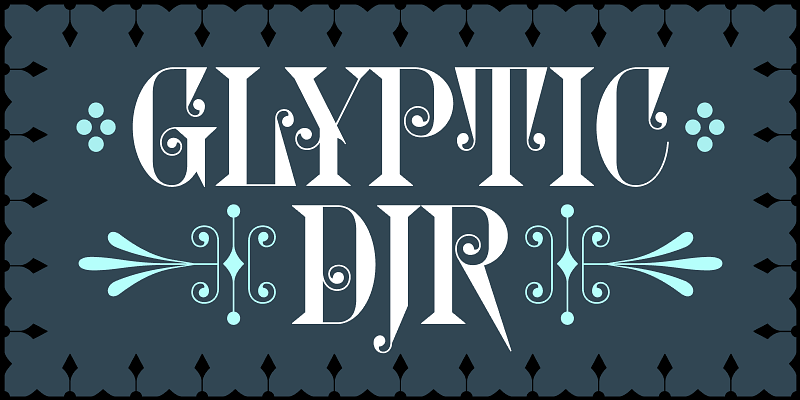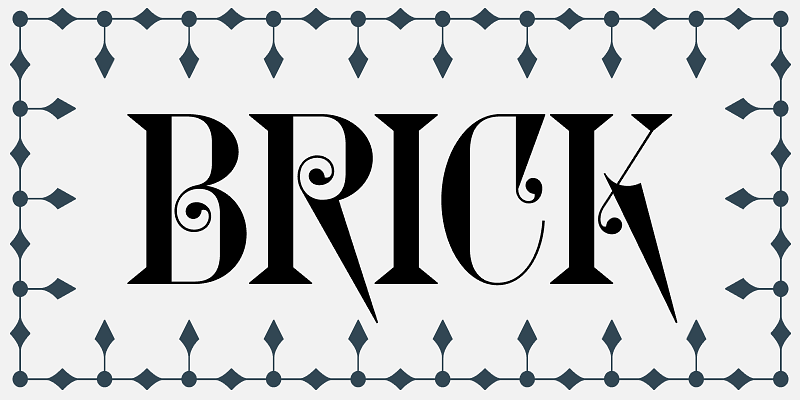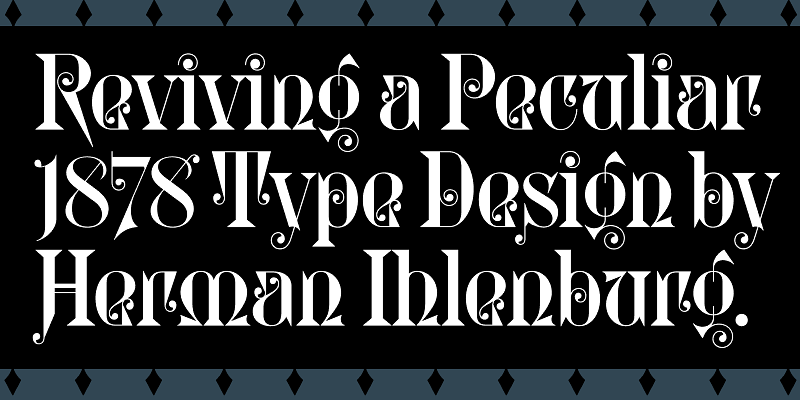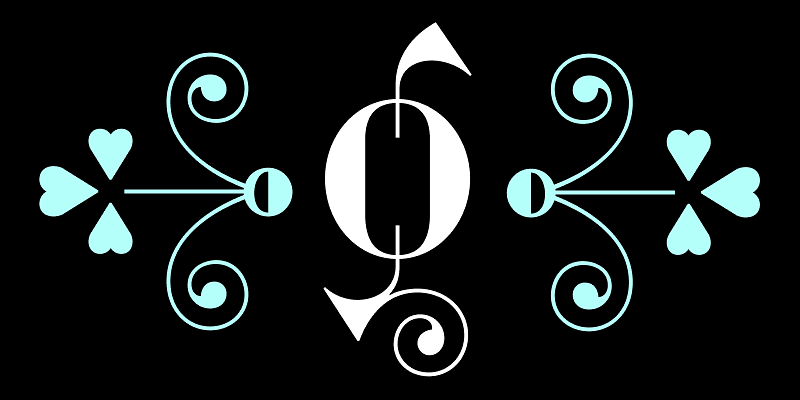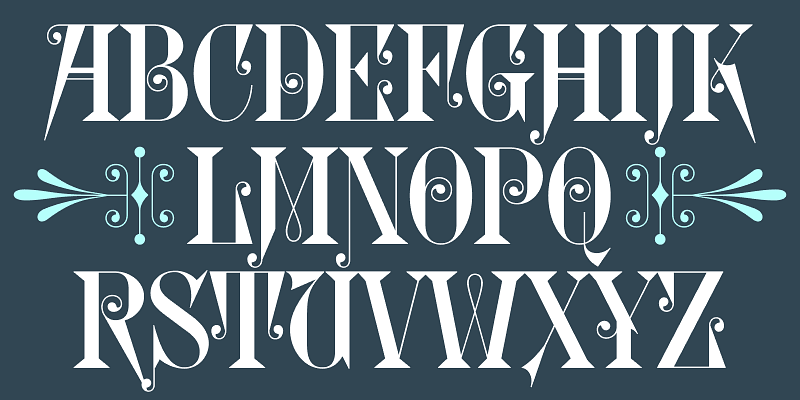
Glyptic DJR revives Herman Ihlenburg’s Glyptic, a decorative Victorian serif designed in 1878 and issued by MacKellar, Smiths & Jordan. My interpretation leans into the frenzied energy of the design, emphasizing the angularity of the wedges and vertical serifs, and then contrasting them against delicate spirals and curlicues. The spacing is tight—optimized for contemporary use. This revival also adds a Uncial-inspired lowercase, lining figures, and borders, none of which were present in the original design.